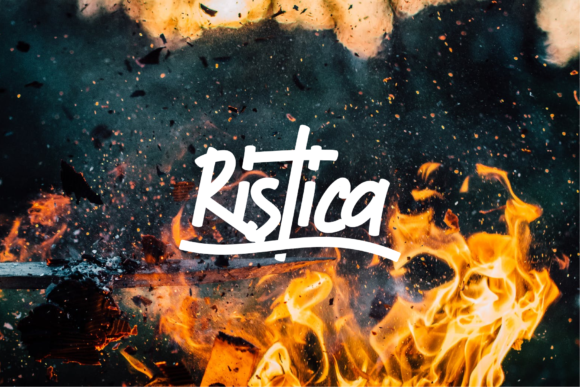
Introducing the captivating Ristica font, a creation of 24Design Studios, that will ignite your designs with its bold and expressive flair. Inspired by the designer's unique handwriting, Ristica embodies the essence of raw creativity and personal style.
Dive into a world where your words dance with undeniable charisma, leaving an unforgettable impression on beholders. Ristica's dynamic strokes and eye-catching curves will transform your designs into works of art, captivating attention and evoking emotions.
Whether you're crafting logos that command presence, designing posters that ignite imaginations, or creating website headlines that entice engagement, Ristica is the secret weapon you've been searching for. Its versatility empowers you to showcase your brand's personality in a way that resonates with your audience.
Picture your designs adorned with Ristica's enchanting presence, captivating hearts and minds alike. It's the key to unleashing your creativity, making a statement, and leaving an everlasting mark. Experience the allure of Ristica today and let your words burst forth with unparalleled style and impact.